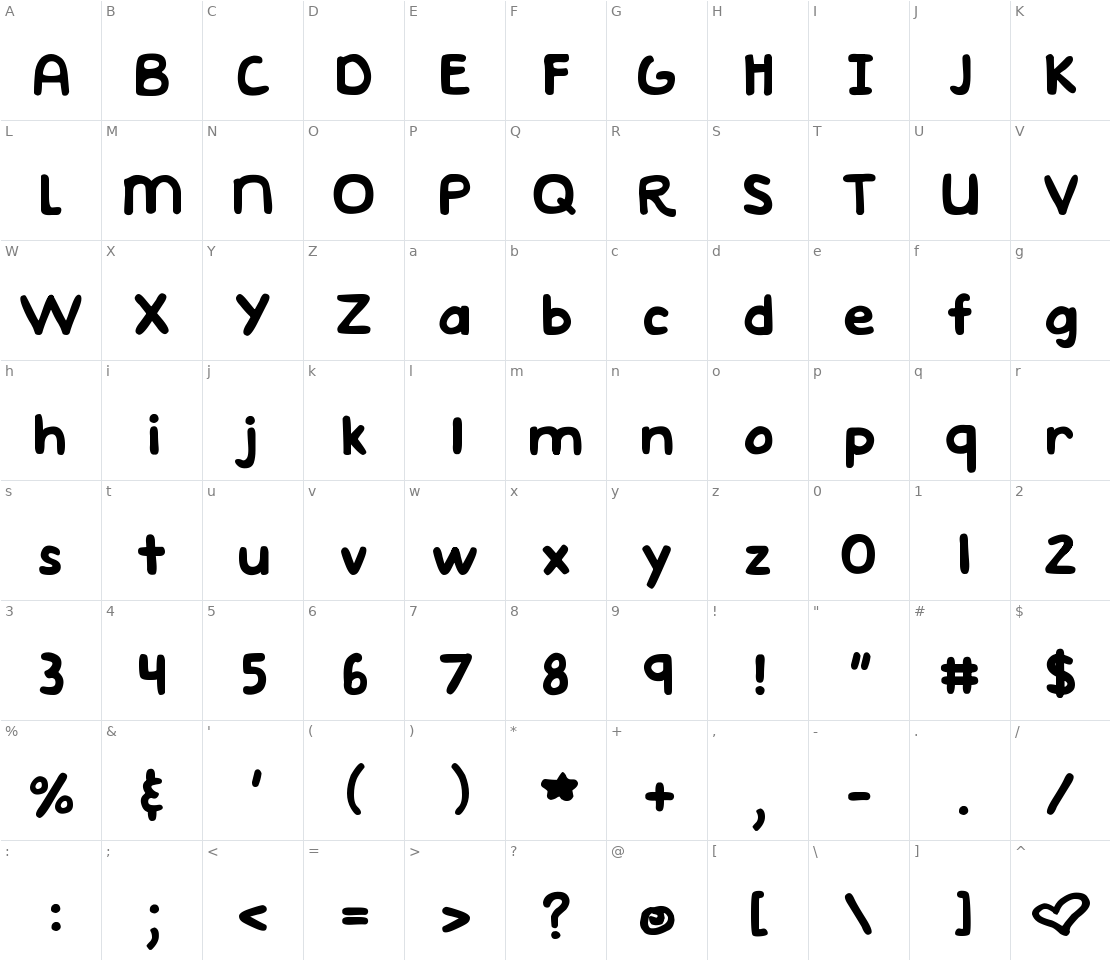
DJB Emphatic
DJB Emphatic is a thick, rounded handwritten face from DJB Fonts with bold strokes that feel like someone grabbed the fattest marker in the cup and started writing with real enthusiasm. The letterforms are casual and friendly, with enough weight to hold their own in headlines, posters, and social media graphics. It reads as playful without being childish, keeping things warm and approachable even at larger sizes.